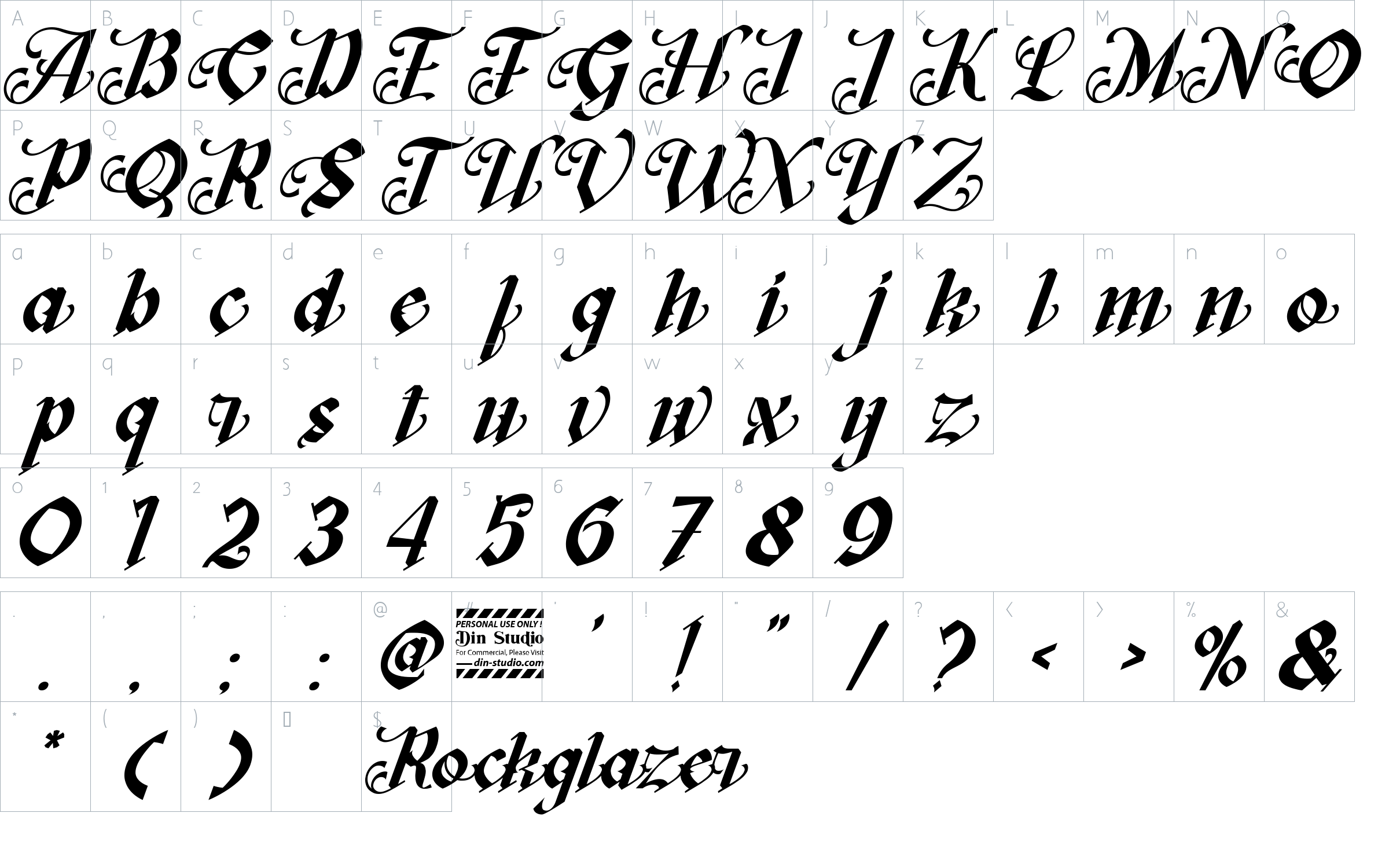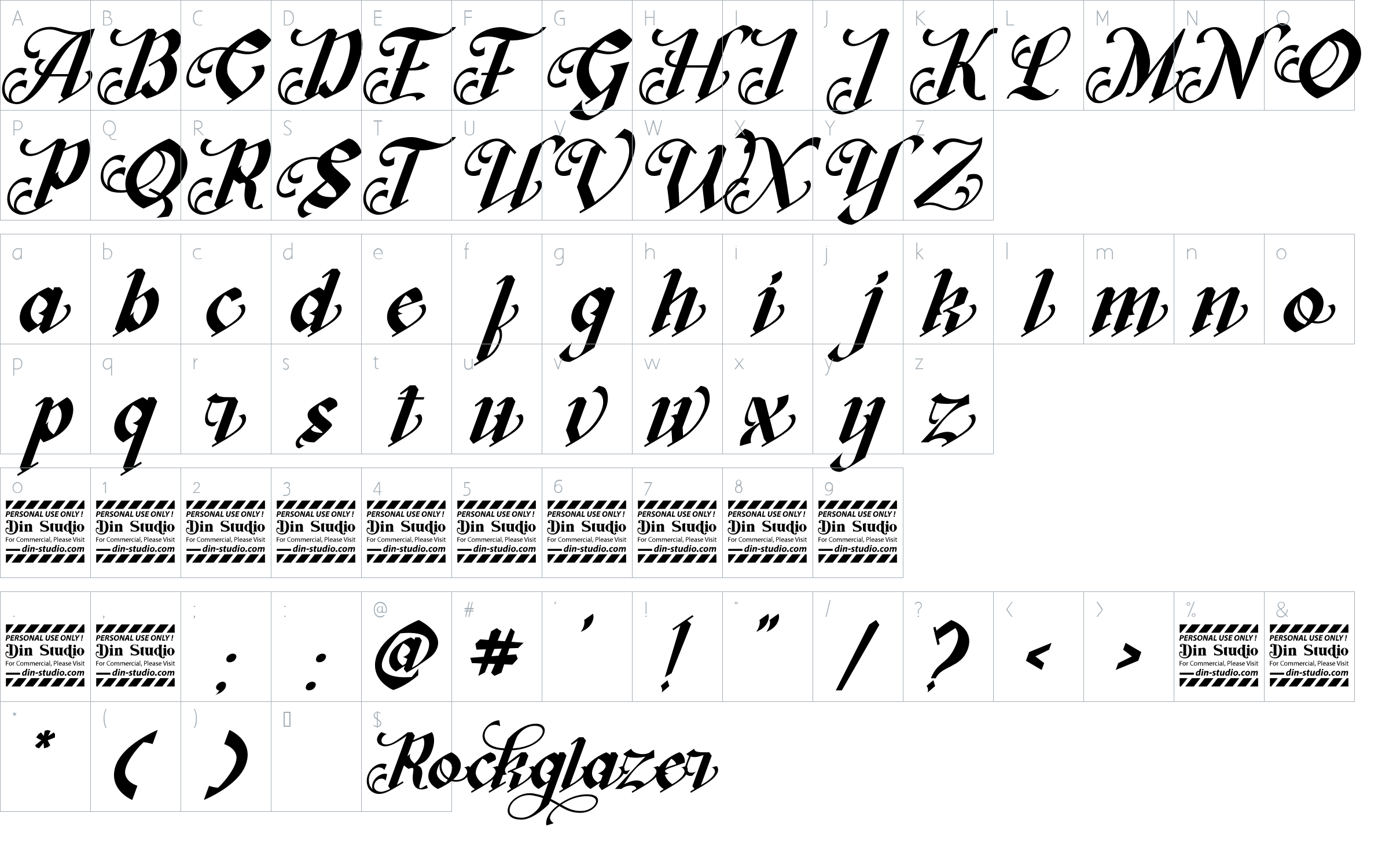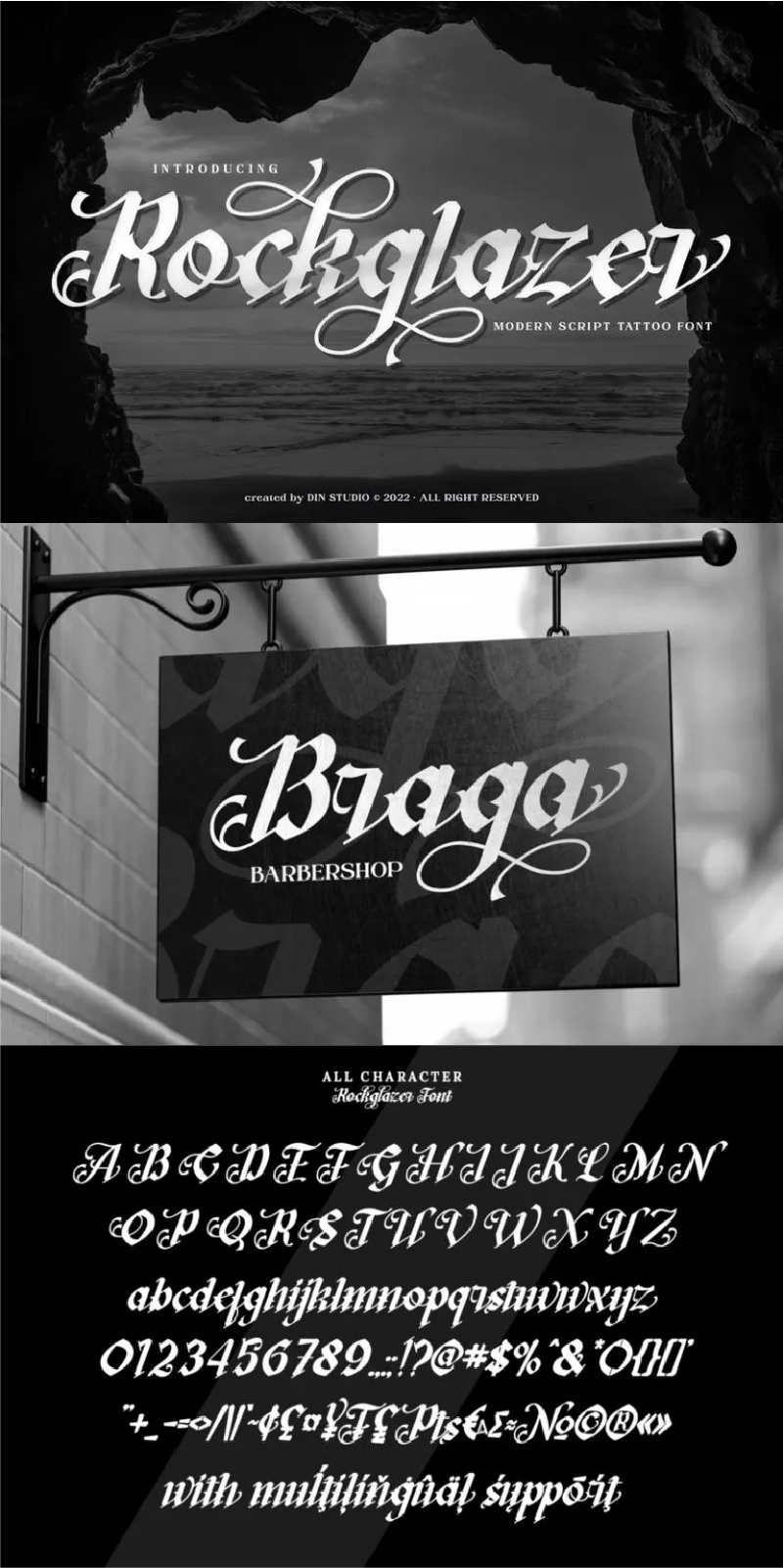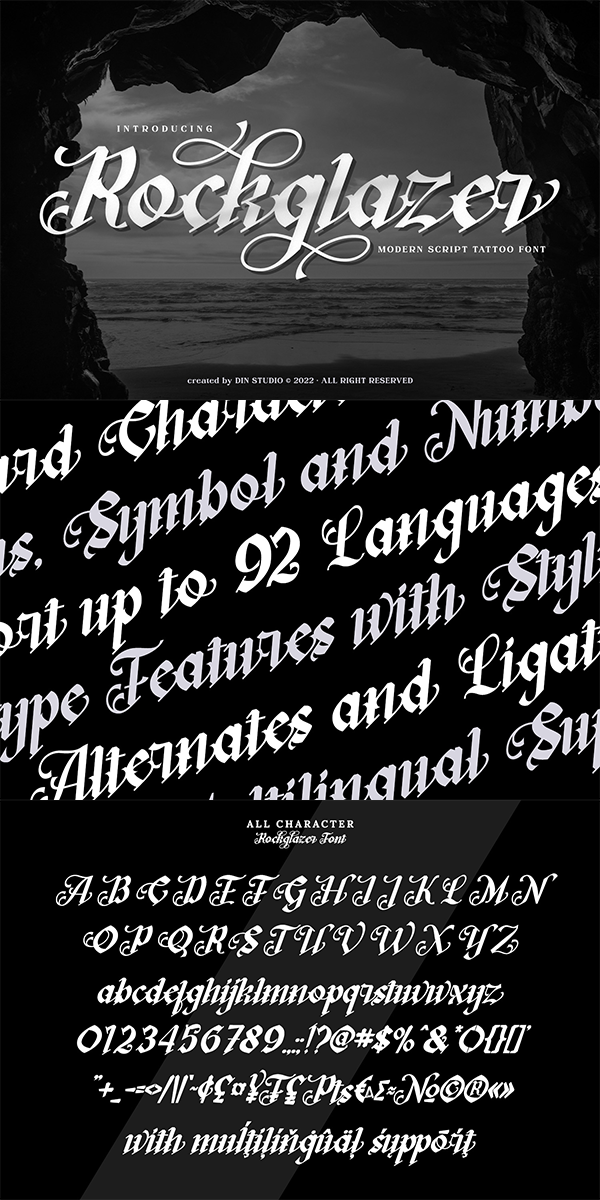
Rockglazer Font
About Rockglazer
Rockglazer is a script font similar to a curve writing which expresses modernity, boldness and strength, unlike the other script fonts. There are swinging curves and wipes on some of the letters to add beauty, and the differences in the line thickness of each letter are so clear that you can use this font for bigger-sized texts for a better legibility.
Rockglazer fits for various design projects, such as posters, banners, logos, magazine covers, quotes, greeting cards, printed products, merchandise, social media, etc. Find out more ways to use this font by taking a look at the font preview.